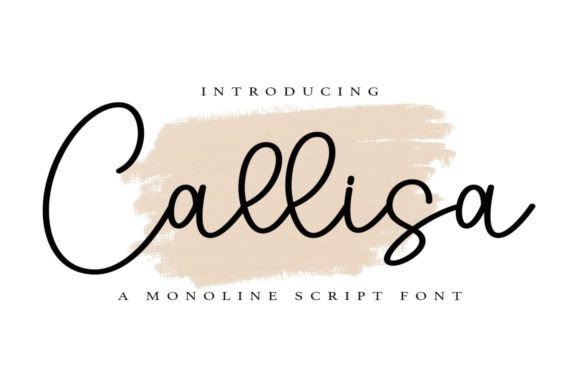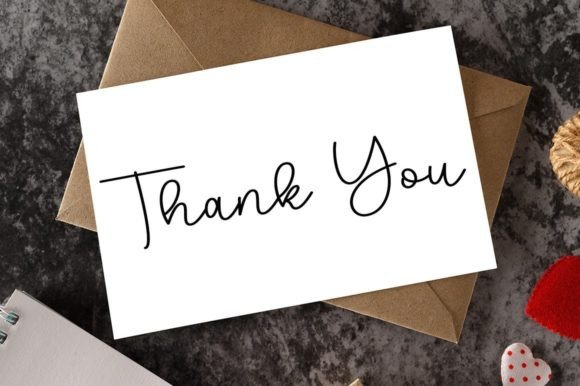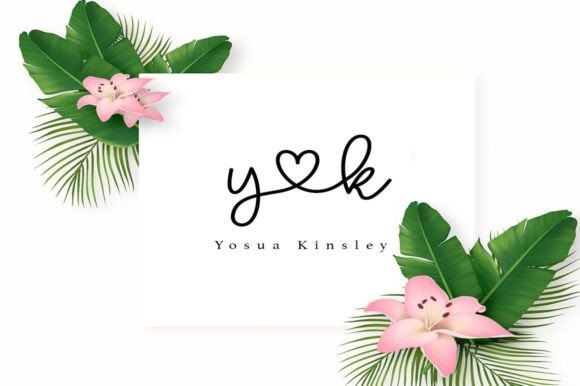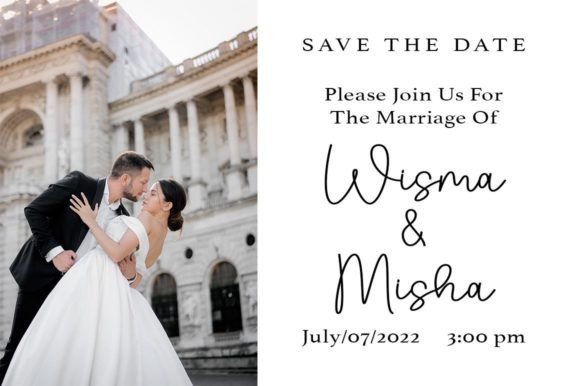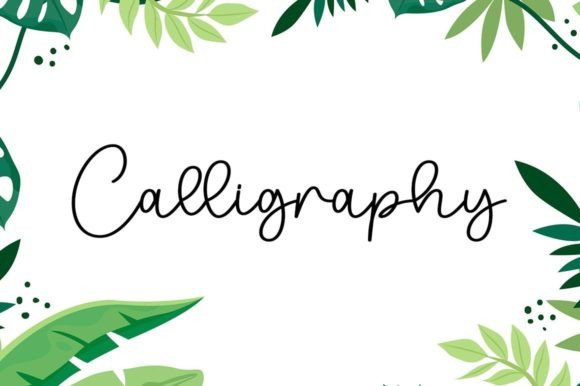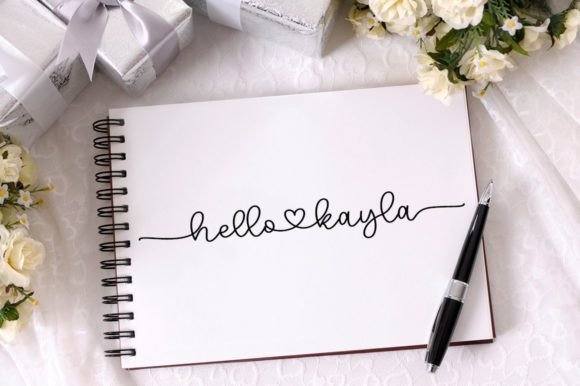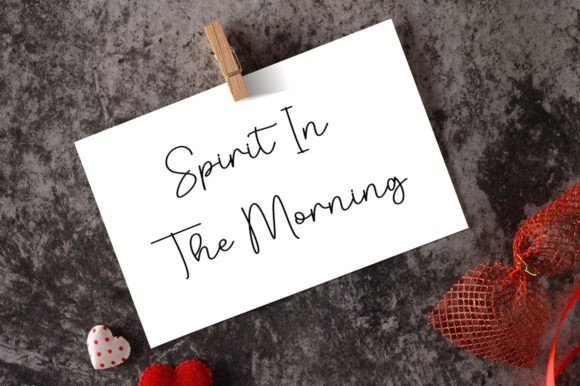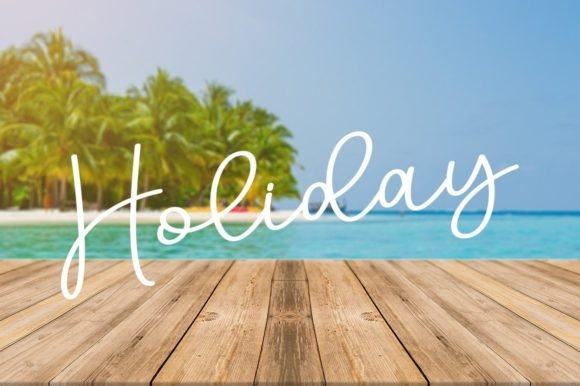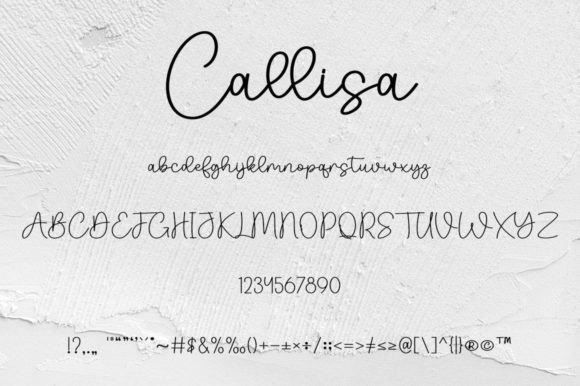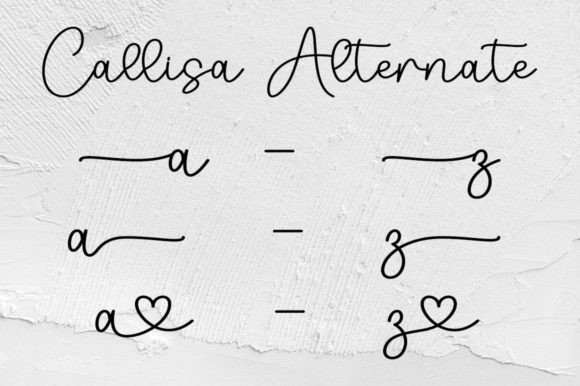
Callisa Font
About Callisa Font
Callisa stands as an elegant script font, carefully designed with a balanced and varied appeal—neither too thin nor too thick. Tailored to enhance the beauty of your projects, this font is a versatile choice for adding a touch of sophistication. Callisa, being PUA encoded, allows effortless access to all of its glyphs and swashes, providing you with a seamless design experience.
The balanced nature of Callisa makes it suitable for a wide range of design applications. Its not-too-thin and not-too-thick strokes create a harmonious and visually pleasing aesthetic, ensuring that it complements various project themes and styles.
In the realm of elegance, Callisa stands out as a refined script font. Its versatility allows it to adapt gracefully to formal invitations, branding, and other design projects where an elegant and stylish touch is desired. The varied strokes and well-crafted characters contribute to the overall appeal, making it a valuable asset in your font collection.
The PUA encoding of Callisa is a user-friendly feature, ensuring that you can effortlessly access all the intricate glyphs and swashes it offers. This accessibility allows for creative freedom, enabling you to explore the extensive character set and incorporate decorative elements seamlessly into your designs.
In conclusion, Callisa is more than just a font; it’s a tool for enhancing the beauty of your projects with an elegant touch. Whether you’re a professional designer or someone engaged in creative endeavors, Callisa’s versatility and PUA encoding make it a valuable asset for creating visually captivating and refined designs. Elevate your projects with the sophisticated charm of Callisa, where balanced elegance meets seamless accessibility.